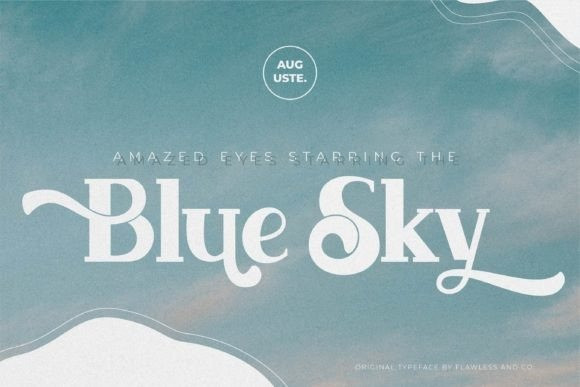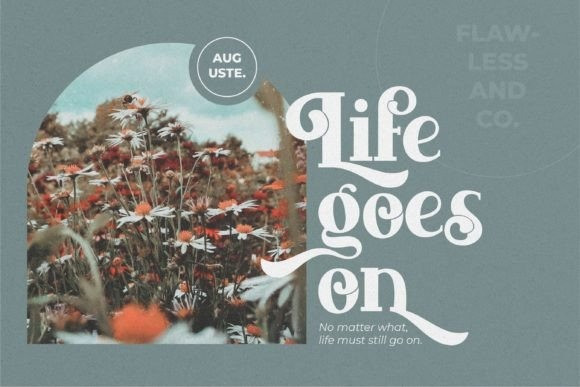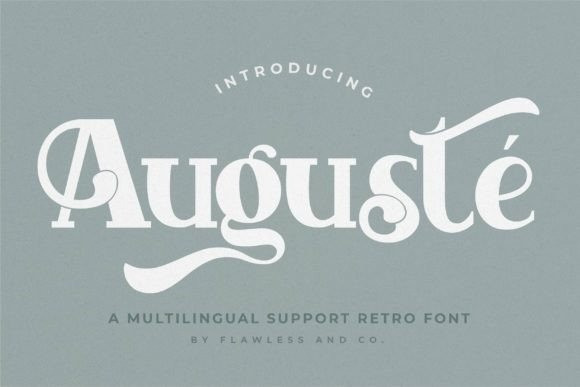
Auguste Font
Auguste Font is an elegant, retro-inspired display font that has a broad appeal and can be used for any project. This typeface will enhance your craft with little effort, making your product stand out from the competition.